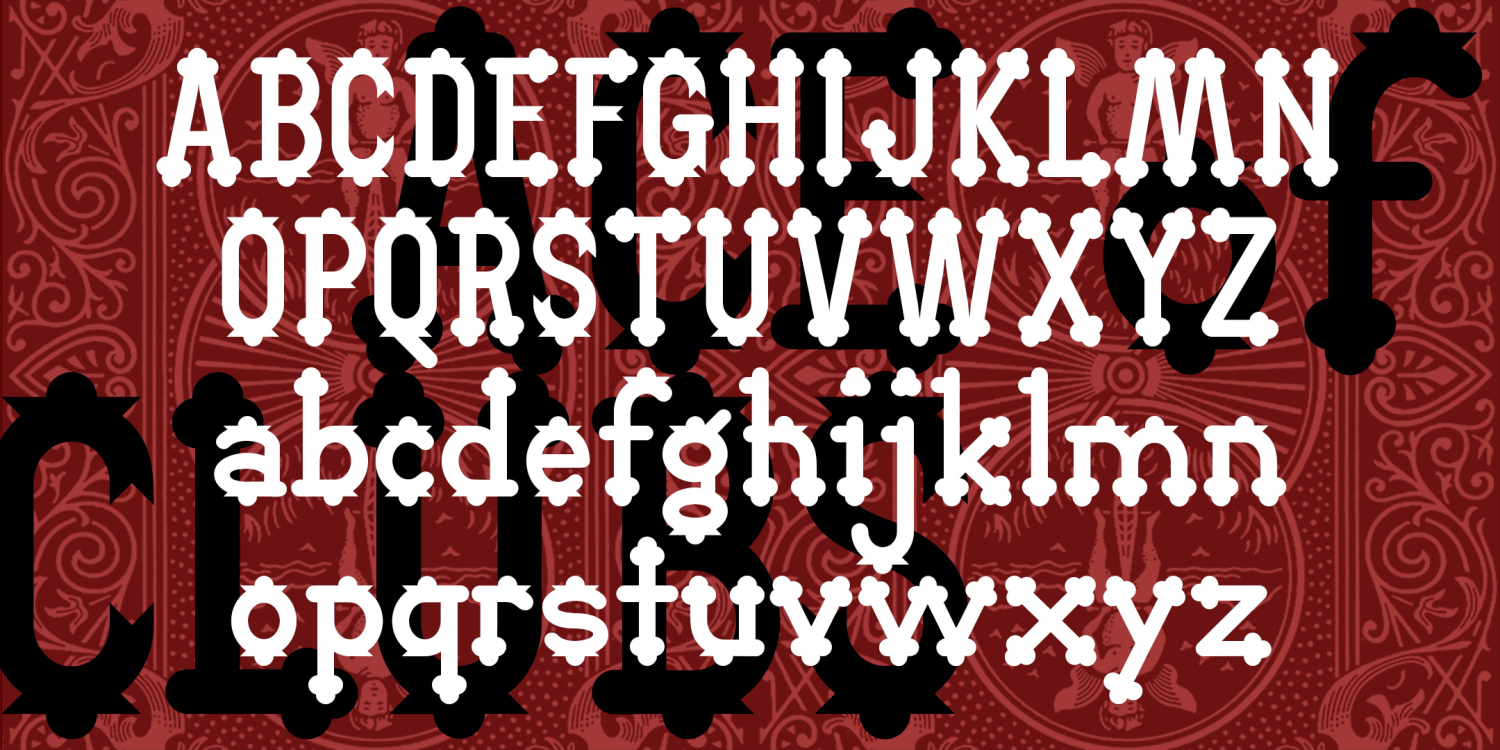
Ace Of Clubs Regular
ACE OF CLUBS is a decorative display font with its roots in the 19th century. The unique trefoil or club-shaped terminals give it a certain jolliness, inspired by the former “lollipop” logo of the A&P supermarket chain. Starting with just 2 letters, I expanded it into a complete font with upper- and lowercase, numbers, punctuation, and the rest.